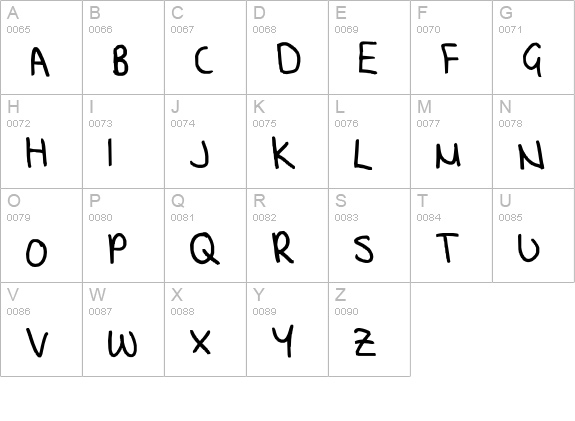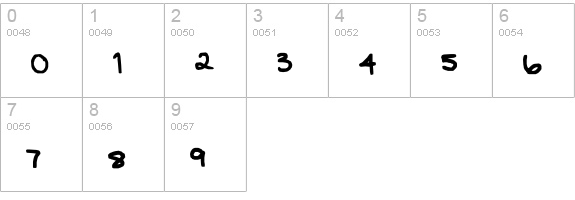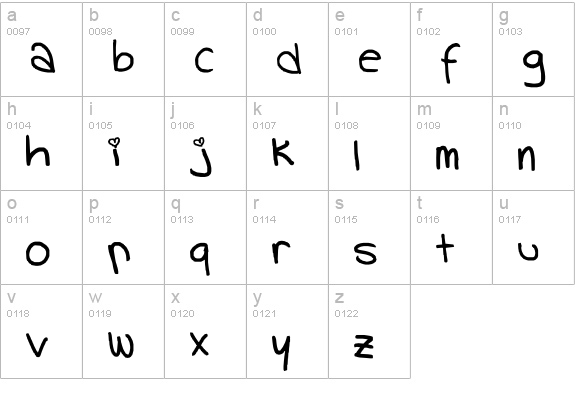
Introducing the exquisite and captivating Handwriting font, a true testament to the art of penmanship. This unique typeface effortlessly captures the elegance and fluidity of hand-drawn script, allowing your words to flow with an organic charm that is simply unmatched. With its delicate strokes and graceful curves, this Handwriting font brings a touch of sophistication to any project. Whether you're designing invitations for a special event, creating personalized stationery, or adding a personal touch to your branding, this font will add a sense of authenticity and warmth to your work. What sets this Handwriting font apart is not only its impeccable design but also its availability for free. Yes, you read that right - this stunning font is freely available to download at FontsMarket.com. Now, you can effortlessly elevate your designs without breaking the bank. With its versatility and timeless appeal, this Handwriting font is suitable for a wide range of creative endeavors. From logo design to social media graphics, from book covers to website headers, this font will bring a touch of elegance and sophistication to every project. So why wait? Experience the beauty of handwritten charm with this Handwriting font. Download it for free at FontsMarket.com and let your creativity soar to new heights.